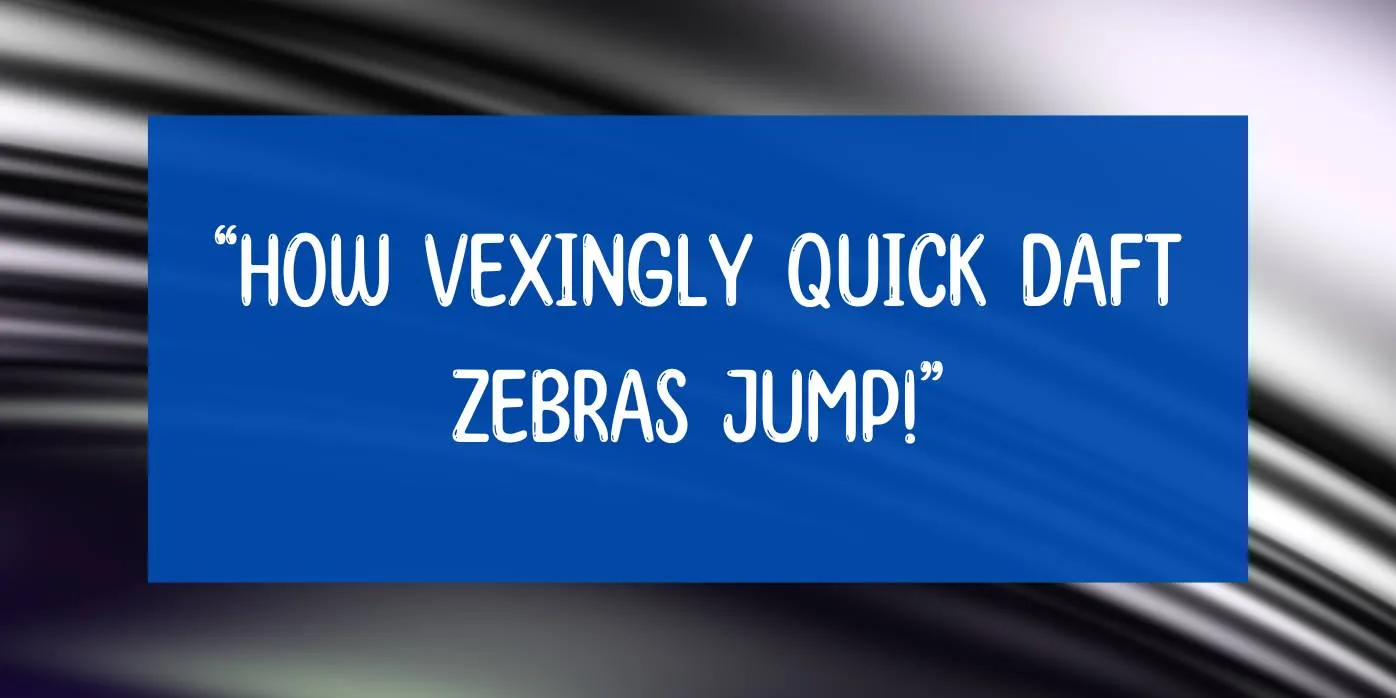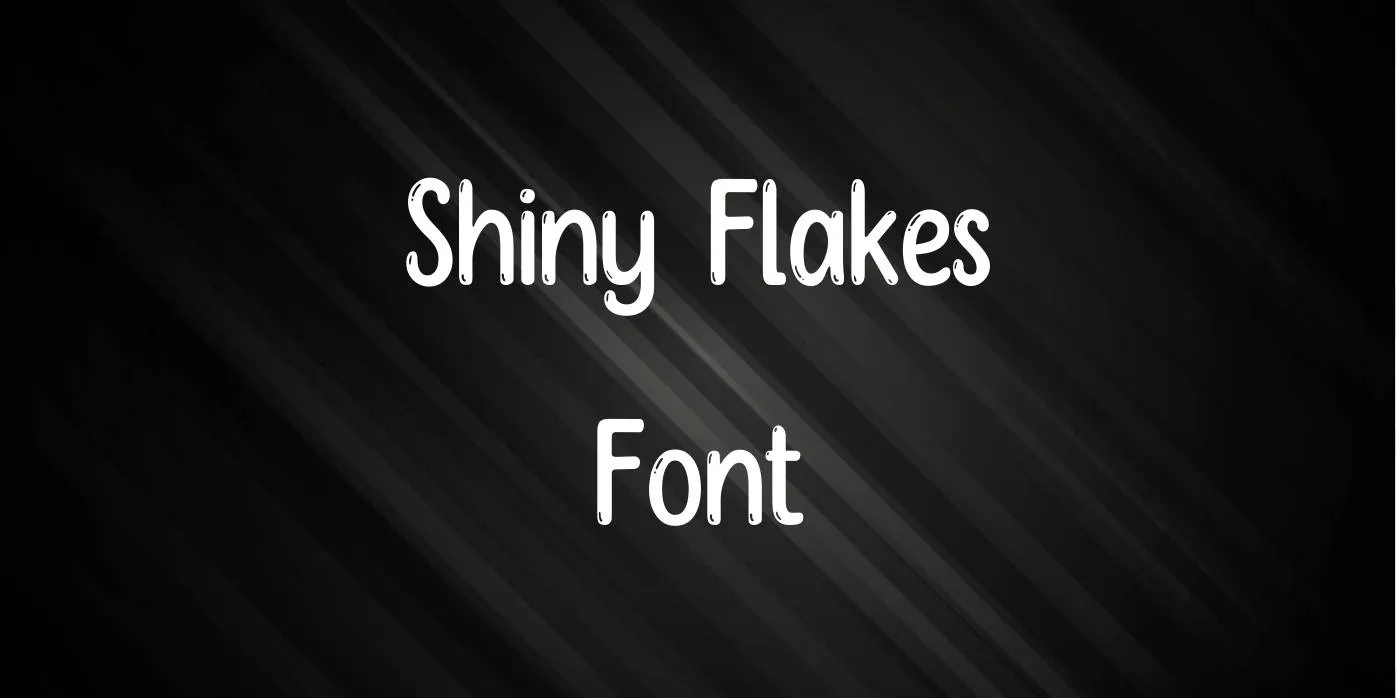
Shiny Flakes Font
Here we discuss a very amazing fancy typeface Shiny Flakes Font. This beautiful font was designed by Niskala Huruf. You can use this font to make different projects. It has many amazing features it has 265 characters, 234 glyphs, and 1000 units per Em.
You can use it for pairing it with other fonts like bubble bobble font to give a more attractive look to your projects. It is a very funky font with a very bubbly look and you can make display and kids-related items as well. An online generator tool also supports this font which you can change your simple text into a stylish look within seconds. There is no need to download the font you can copy and paste your text easily.
Usage This is a very amazing fancy font and can be used to make so many different projects. It has many features like characters, symbols, numbers, small letters, capital letters, punctuations, and special characters. To make branding and product packings you can also use it. It can be used to make different types of social media posts.
It is a good font for both print and digital media. This stunning font can be used for making different logos and titles for any brand. You can make wedding invitation cards, greeting cards, and other event invitation cards with font. For making social media posts and stylish templates you can use it as well.
To design graphic and website designs you can use different Illustrators, Adobe Photoshop, CSS, and Canva. To make kids-related items with a very bubbly look you can use this font. Banners, posters, flyers, and brochures can also be made by using this font. It has a high readability so you can use it for body text and small paragraphs also.